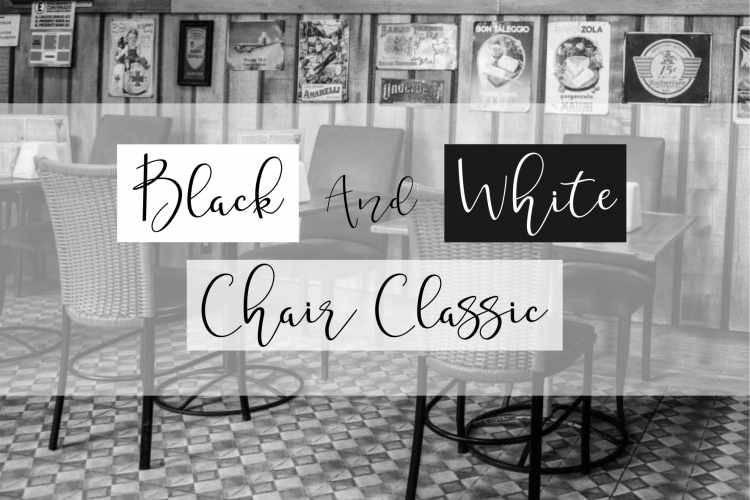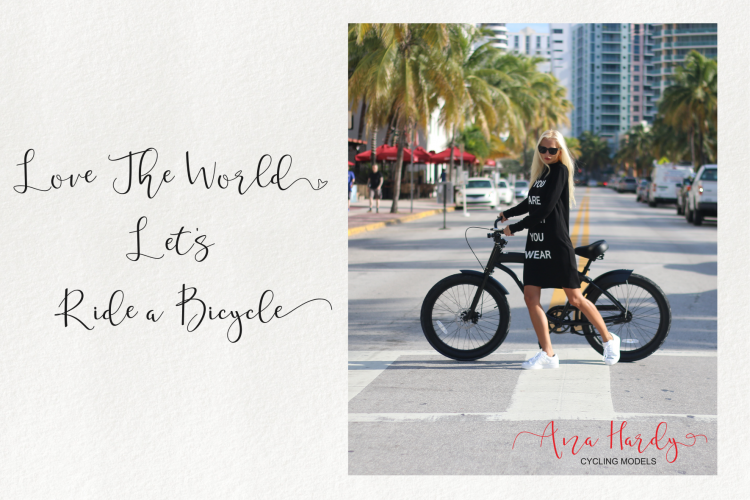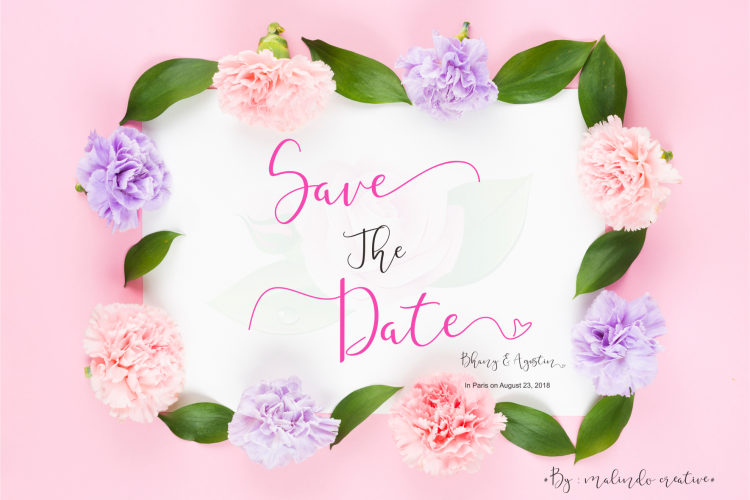
Mahligai Calligraphy Font
Mahligai Font – Script calligraphy an elegant new font! Perfect for making elegant stylish statements – or adding a touch of class to your designs. Mahligai designed and shared by Malindo Creative. Mahligai Calligraphy Font is A Beautiful Handwriting, This Type Of Writing Is Irregular Between The Upper And Lower, And It Is A Smooth And Coarse Typeface, This Font Is Made To Meet All Types Of Desing And Printing, This Font Supports Language, It Is Suitable To make: banners, brochures, invitations, shirts, mugs, calendars, posters, and more, and it is expected that this font will be useful for all designers.